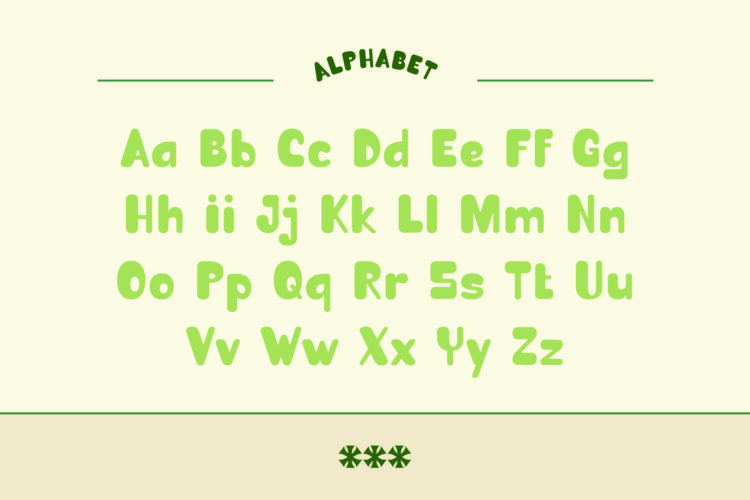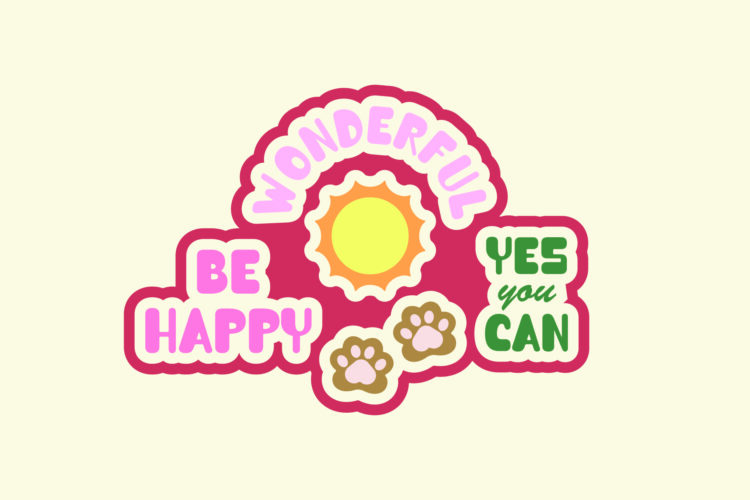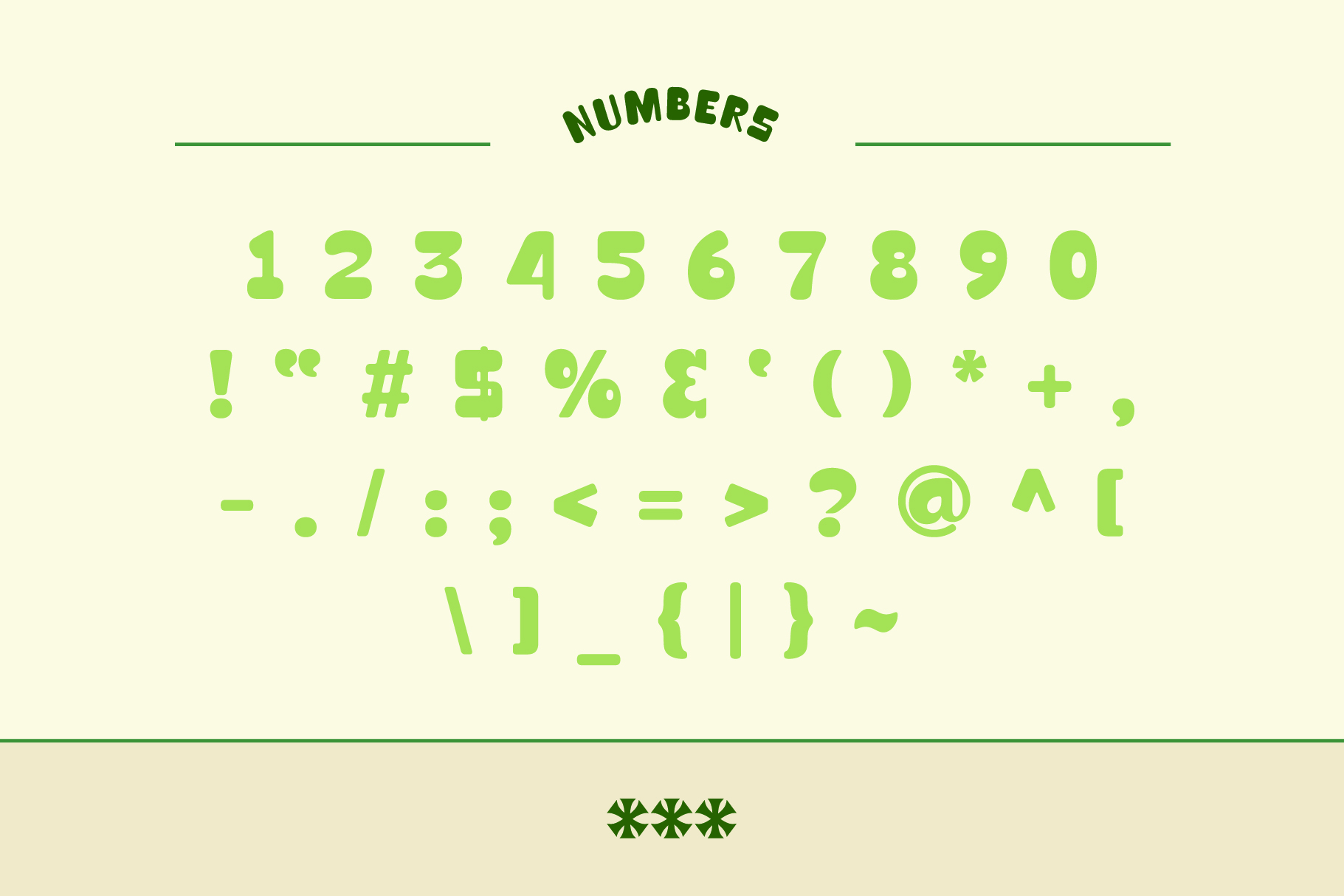
Take your designs to the next level with Queries, the ultimate playful bubble sans‑serif font! Retro‑inspired and full of personality and style, this font suits logos, magazines, children’s books, quotes, and more.
Queries excels at bold, attention‑grabbing headlines. Its playful design makes titles and headings stand out from the crowd.